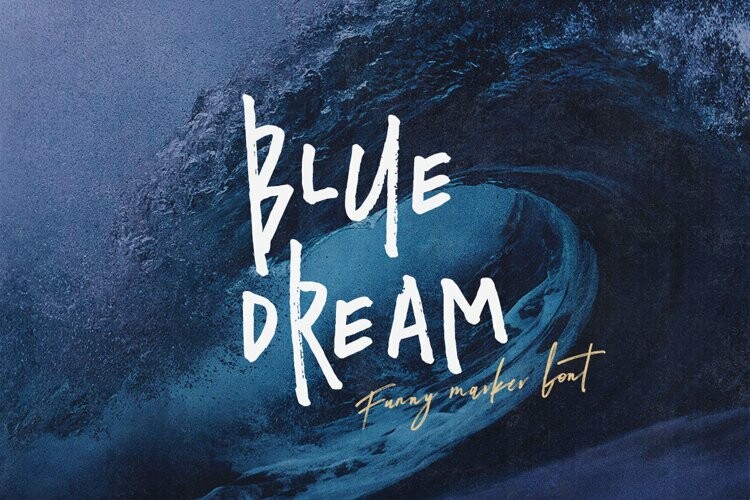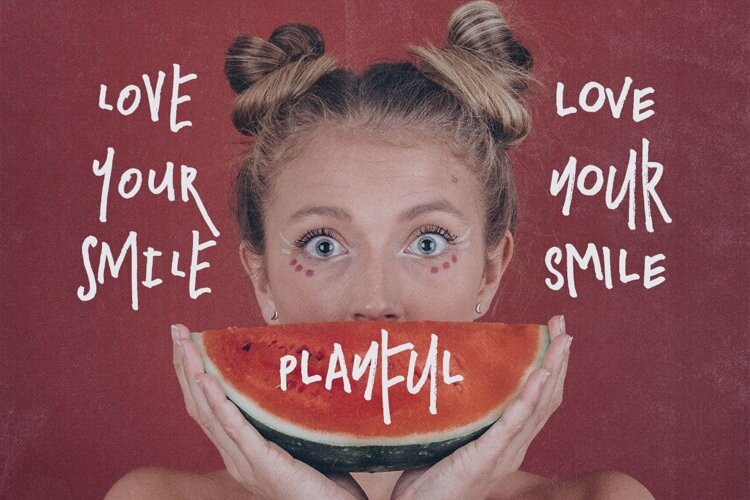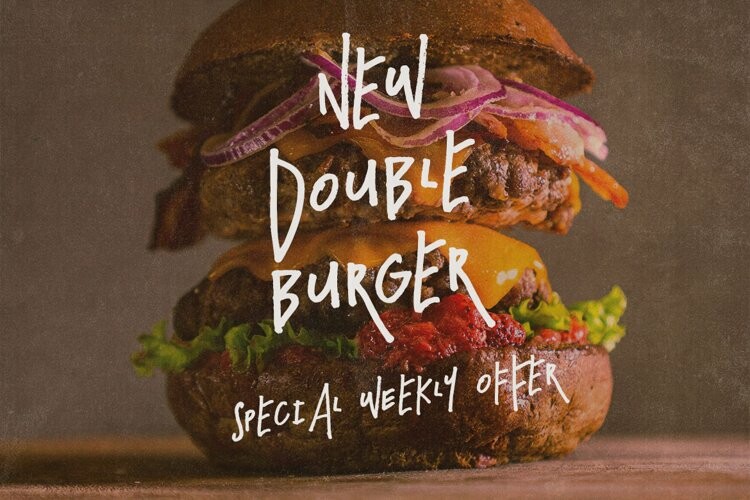
Blue Dream Font
Blue Dream FontMarker, handwritten, crazy & grunge style sans display font for your new projects. Great for grunge or artistic projects!